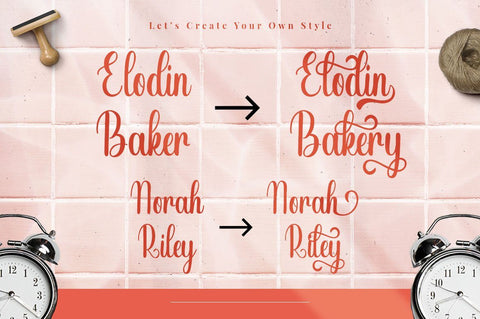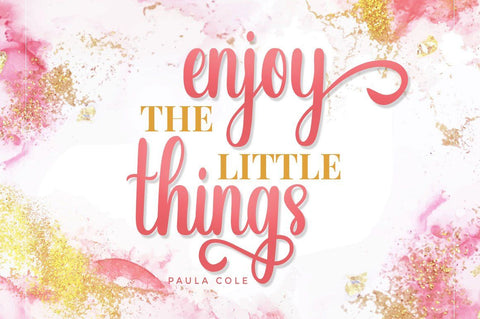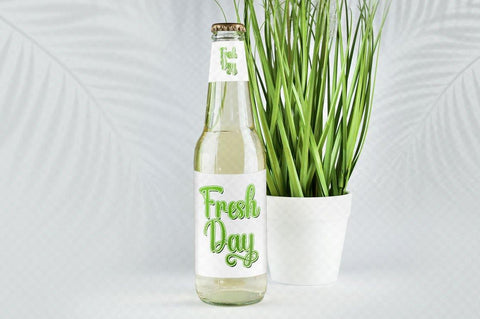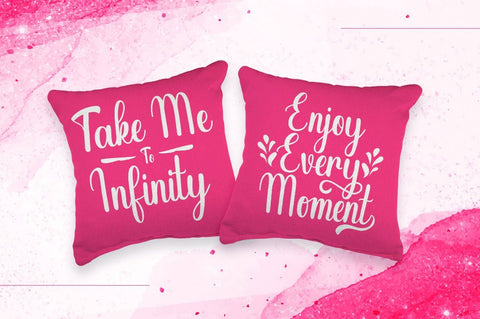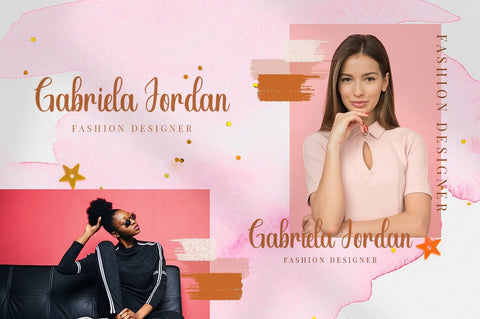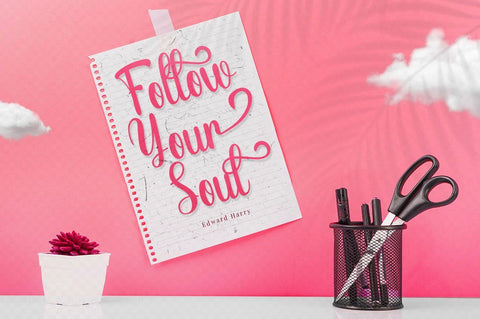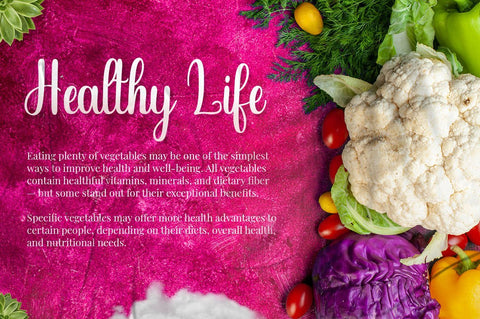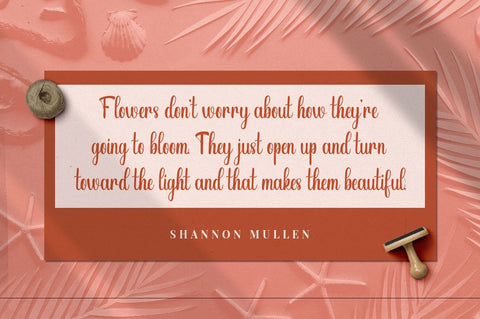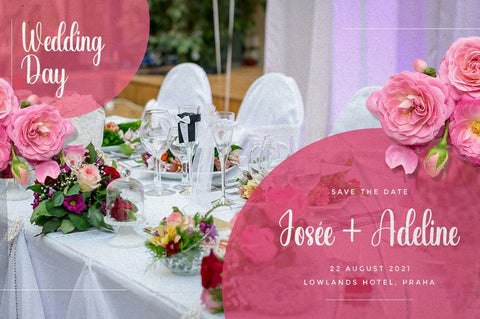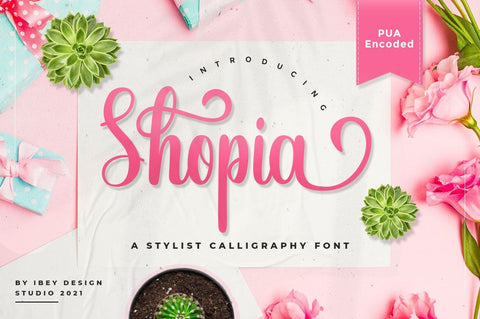
Shopia - Modern Calligraphy Font
Sophia Modern Calligraphy Font is a stylish handwritten font that inspires friendliness and elegance. It is perfect to use for any of your wonderful creations such as branding projects, logos, brochures, business cards, wedding invitations, and many others!
Sophia Modern Calligraphy Font is PUA encoded which means you can access all of the glyphs and swashes with ease!